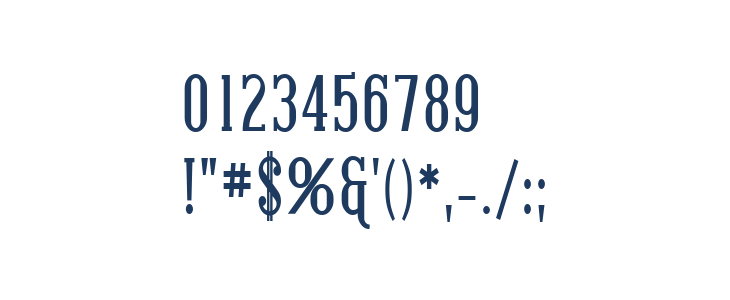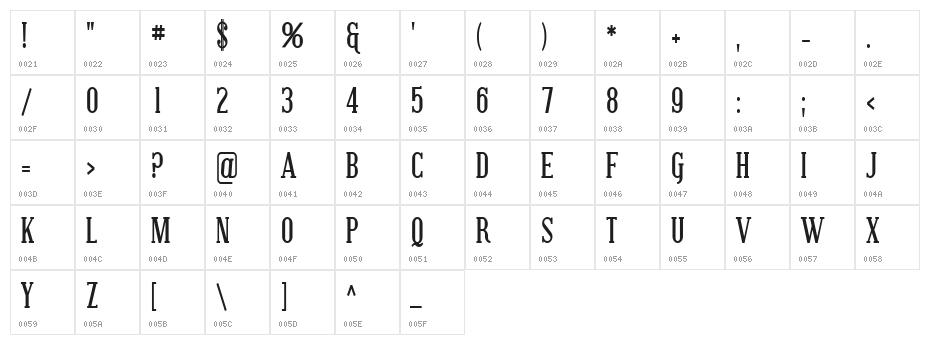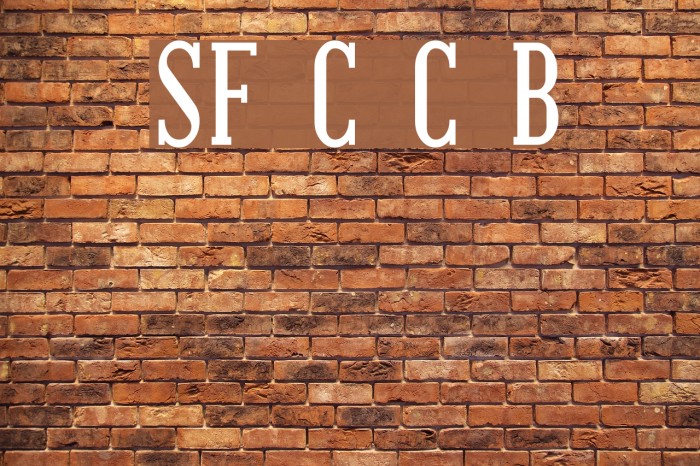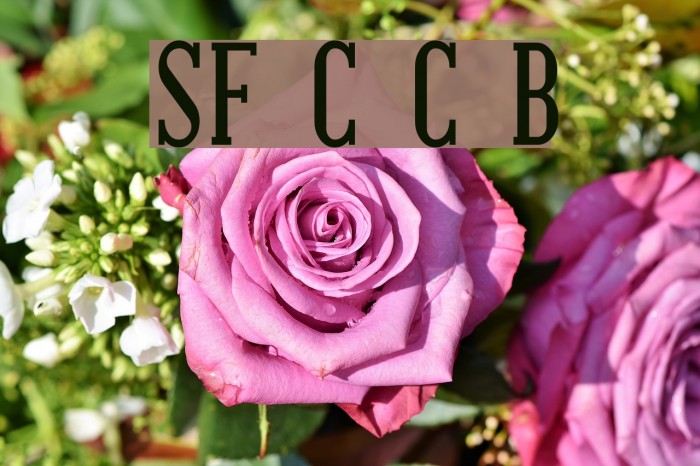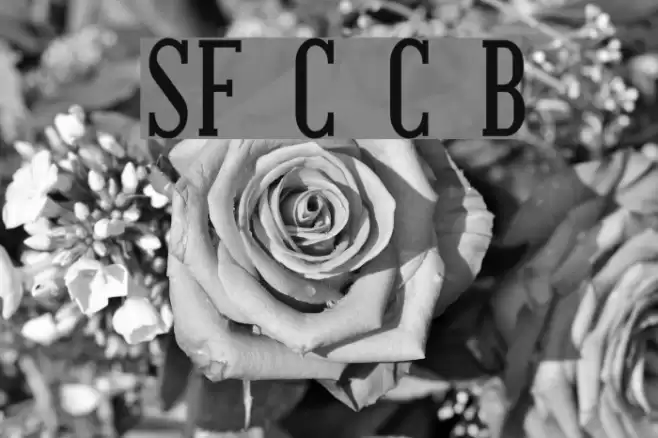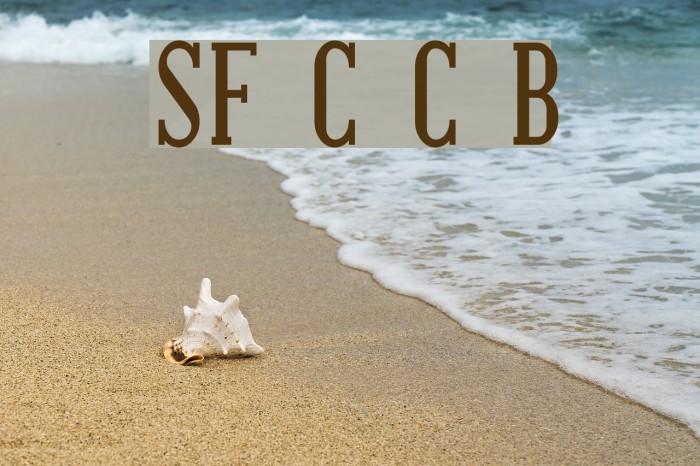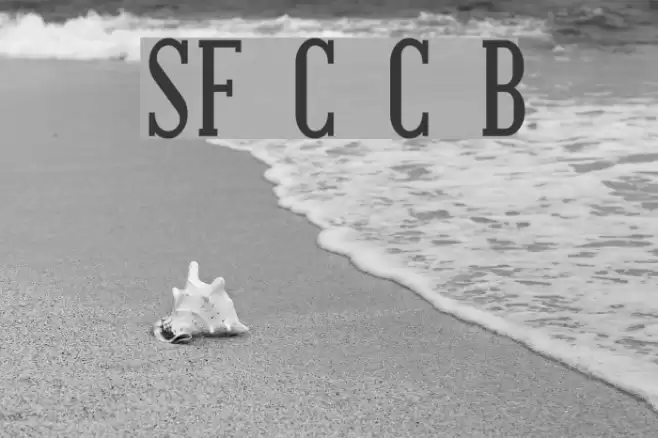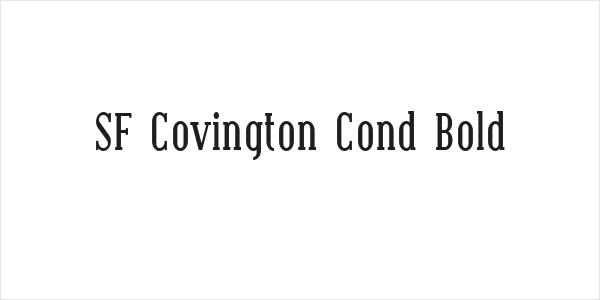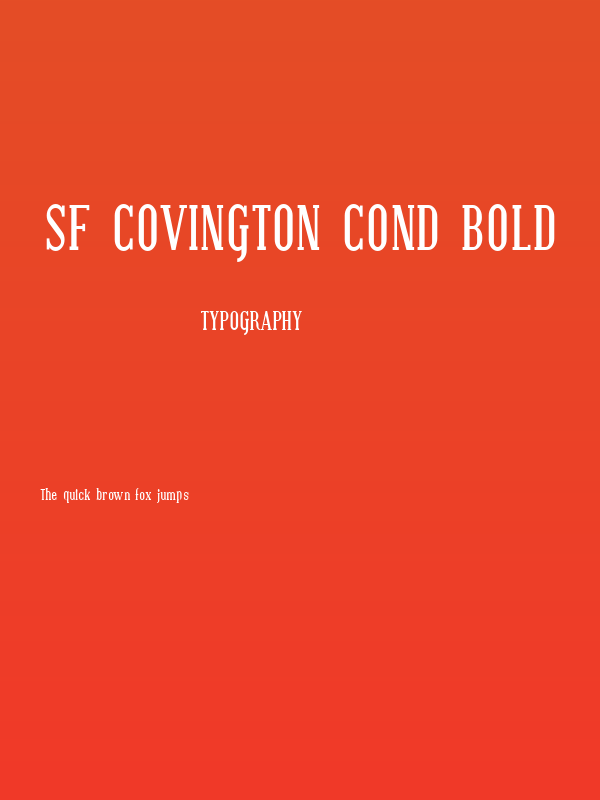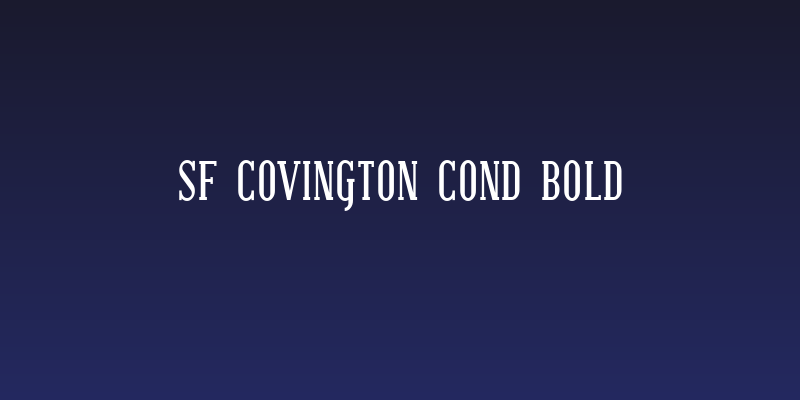
SF Covington Cond Bold Font
SF Covington Cond Bold Description
This font features a bold and condensed style with a strong presence, making it ideal for impactful headlines and titles. The characters are tall and narrow, providing a modern and sleek appearance. The serifs are pronounced yet refined, adding a touch of elegance to the overall design. The uppercase letters are particularly striking, while the lowercase letters maintain a consistent and harmonious flow. The numerals are clear and easy to read, and the special characters are well-integrated into the font's aesthetic. This font's boldness and condensed nature make it suitable for projects that require a strong visual impact.
| Proposed Projects | Ideal for headlines, posters, branding, and editorial design. |